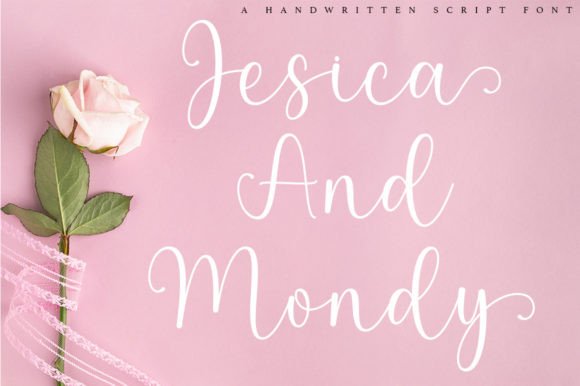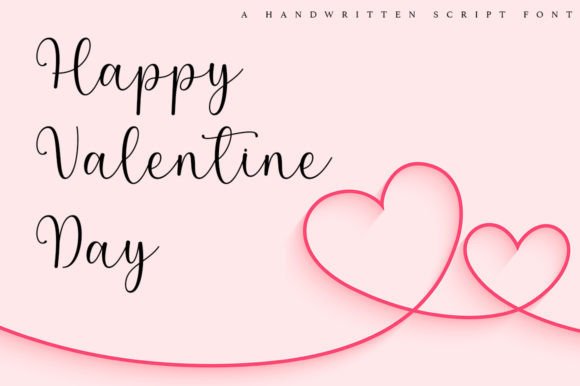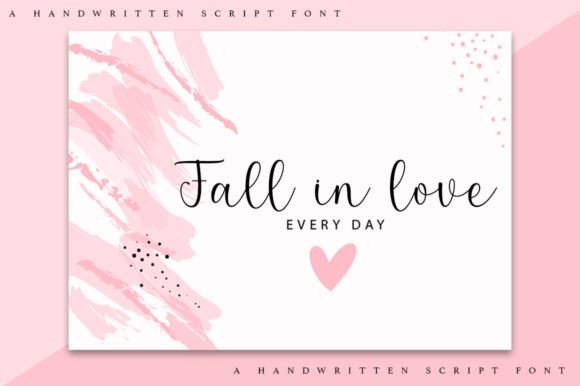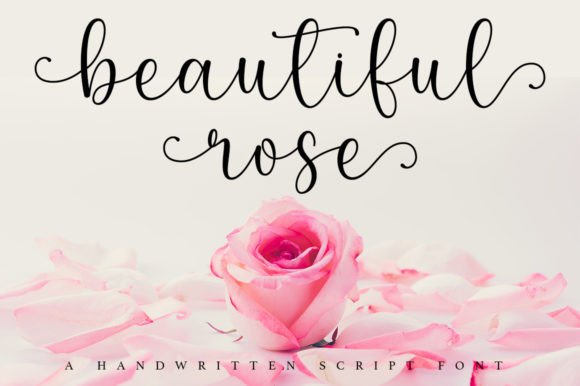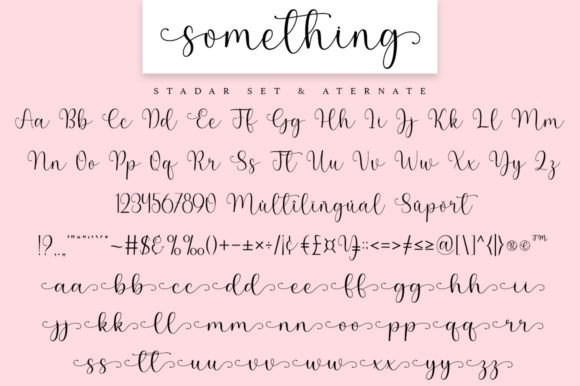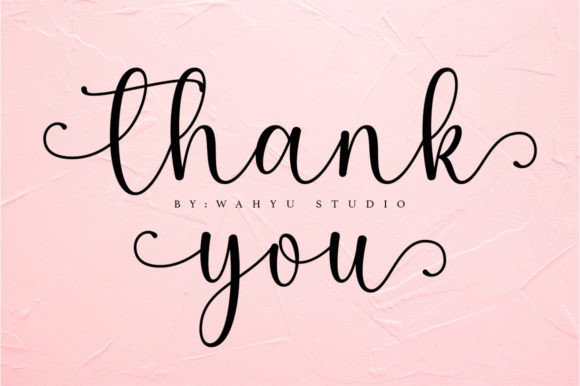
Something Font
What Is Something Font?
Something Font is a timeless handwritten script designed to bring elegance and personality to any project. Each letter has smooth curves and a handcrafted style that feels warm, authentic, and refined. Because of its unique character, this font is perfect for designs that need a creative and memorable look.
You will see how easily Something transforms your work with its charming, artistic touch.
Something is a highly versatile font you can apply to many design ideas. For example, it’s perfect for logos and branding. The handwritten style makes any brand feel personal, professional, and distinctive.
In addition, it works beautifully for quotes and social media graphics. When you want your words to feel inspiring and engaging, Something adds just the right amount of flair.
You can also use it for product packaging and labels. Even simple tags or boxes look sophisticated with this elegant script.
When you design wedding invitations or event stationery, Something creates a timeless and heartfelt atmosphere that feels special.
Moreover, it’s great for posters, greeting cards, and personal projects. Your designs will look cohesive, polished, and full of character.
Why Should You Choose Something Font?
There are plenty of reasons to consider Something for your next project. First, it’s easy to read, even with its decorative script strokes. Whether you use it for large titles or small captions, every letter stays clear and stylish.
Also, Something pairs beautifully with minimalist serif or sans-serif fonts. This allows you to create balanced and modern layouts effortlessly.
Because it’s fully PUA encoded, you can access all glyphs, alternates, and swashes without extra tools. Customizing your text becomes quick and smooth.
Designers love that it looks polished right away, saving time while delivering high-quality results.
Something Font adds elegance and creativity to every project. For example, when you want your designs to feel sophisticated and unique, this font makes it simple.
Even minimalist layouts look more engaging with Something’s smooth, artistic strokes. Whether you create branding, invitations, or social media content, your work will stand out.
Using a premium handwritten script also shows your attention to detail and commitment to quality. This builds trust and makes your designs more memorable.
Something Font is more than just a typeface—it’s a creative tool that helps you share ideas with clarity and style. From logos and quotes to product packaging and invitations, this font adapts easily and leaves a lasting impression.